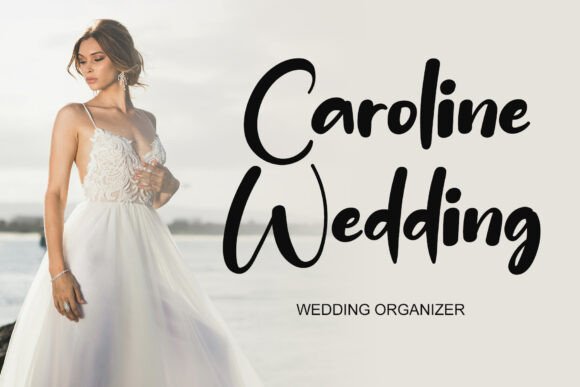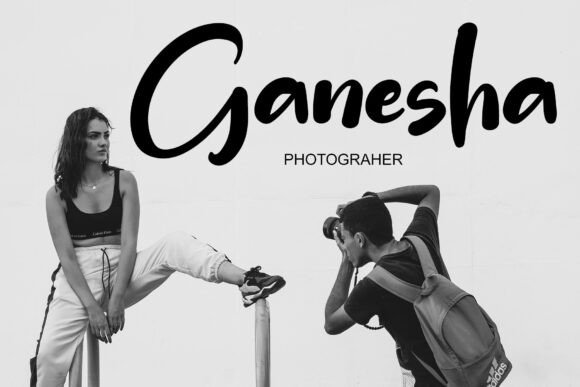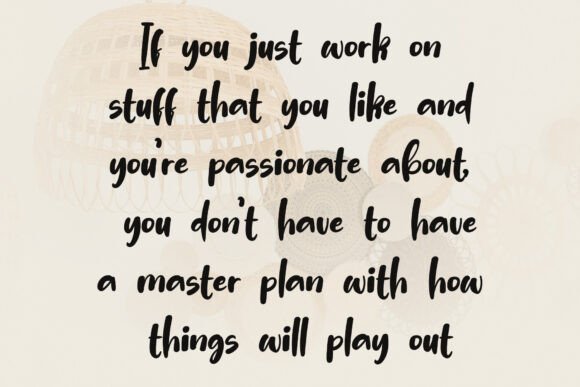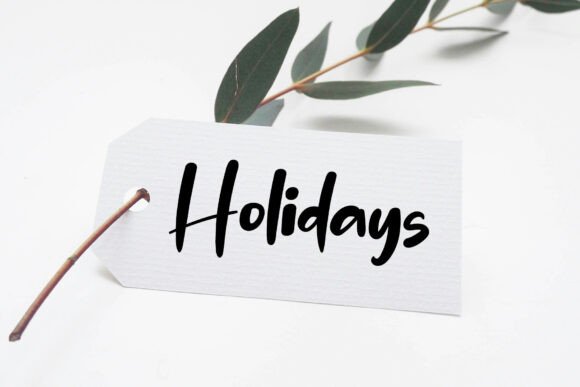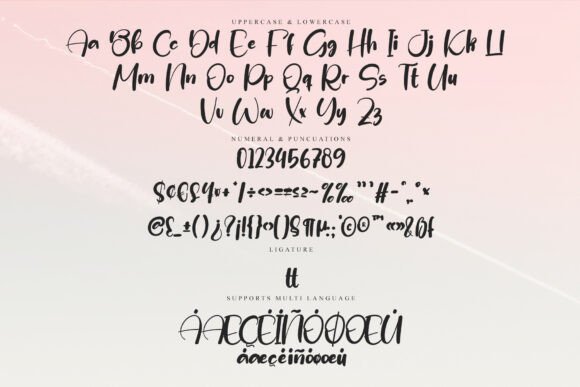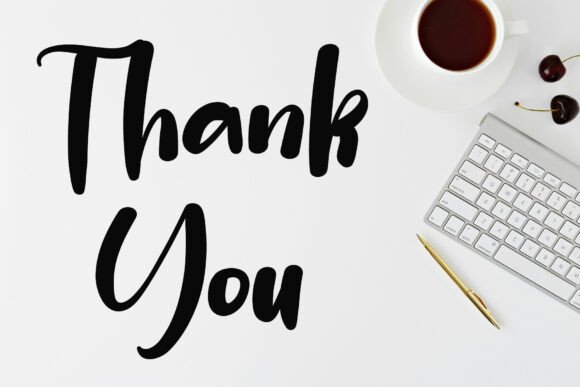
Designing with Joy: Discovering the Bestie Couple Font
You know that feeling when you’re brainstorming a new design project and suddenly, a burst of creativity hits you? It’s like the whole room is filled with ideas and possibilities. For designers, this moment is a treasure trove of inspiration, and we’re always on the lookout for tools that can help us capture that magic. Enter the Bestie Couple Font – a fun and quirky display font that’s perfect for adding a dash of whimsy to your designs.
Whether you’re working on a children’s themed project or simply want to add some personality to your branding, the Bestie Couple Font is an excellent choice. With its PUA encoding, you can easily access all the amazing glyphs and ligatures, making it a valuable asset for designers looking to create eye-catching and engaging designs. By incorporating this font into your next project, you’ll be well on your way to crafting something truly special.
Bestie Couple Font Key Features
- Font Style: A unique, handwritten font designed specifically for romantic and friendship-themed designs.
- Character Count: Comprises of 150 characters, making it suitable for short phrases and quotes.
- Unique Characteristics: Features a playful, cursive script with a mix of bold and delicate strokes, perfect for adding a personal touch to designs.
Review of “Bestie Couple Font”
I recently had the chance to work with the “Bestie Couple Font” and here’s my honest take on it.
- Cute and playful: This font is perfect for designs that require a lighthearted and fun tone.
- High-resolution graphics: The font’s graphics are crisp and clear, even at high resolutions.
- Good for small text: The font’s design makes it suitable for small text, where it still remains legible.
- Limited customization options: The font’s design is fixed, and there’s not much room for customization.
- Not ideal for formal designs: The font’s playful tone may not be suitable for formal or professional designs.
- May not work well for large text: While the font works well for small text, it may not be the best choice for large text, where it can become overwhelming.
Overall, I think the “Bestie Couple Font” is a great choice for designs that require a fun and playful tone. While it has some limitations, it’s a great addition to any designer’s toolkit.
Tips for Getting the Most Out of Bestie Couple Font
Experiment with different font sizes, colors, and combinations to achieve the perfect look. Use it for creating playful, cursive, and handwritten-style designs. This font is perfect for adding a personal touch to your designs.
Bestie Couple Font is ideal for:
- Social media graphics and captions
- Invitations and party decorations
- Custom logos and branding
- Typographic-based designs and quotes